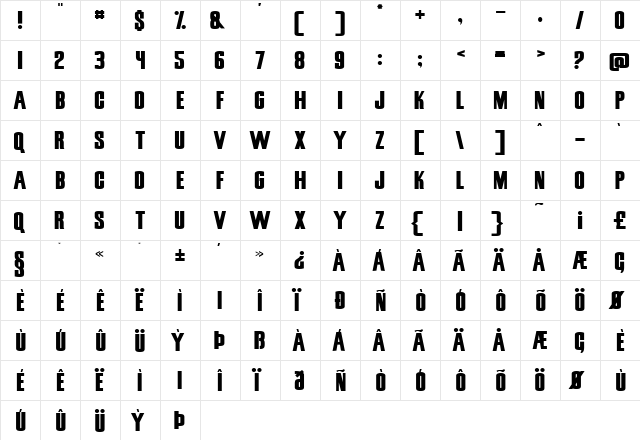
Snickers Straight Normal
Design Context for Snickers Straight Typeface
Snickers Straight offers clean, dependable letterforms without strong stylistic allegiance, making it a practical choice for designers who need flexibility.
Pro Tip: Use Snickers Straight in both headline and body roles to test its range before committing to a single application.